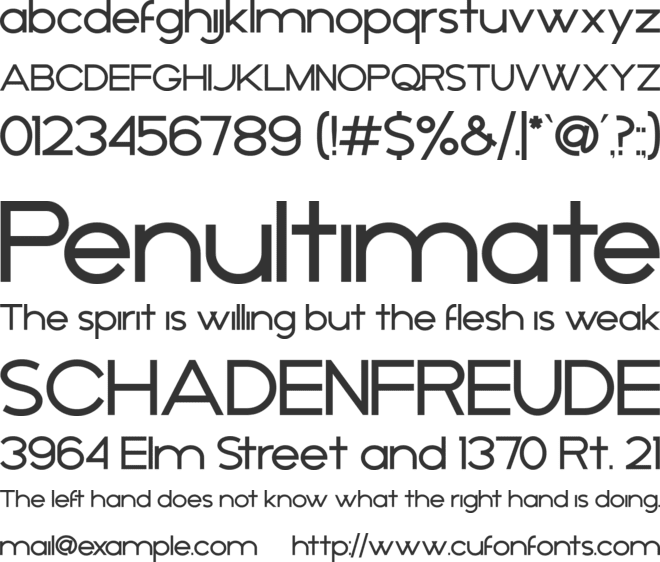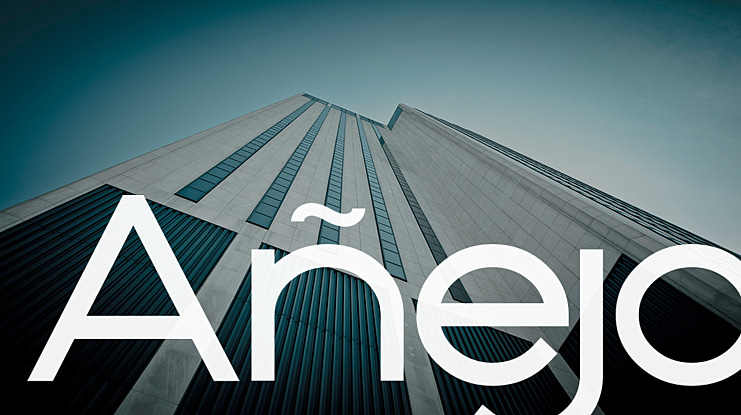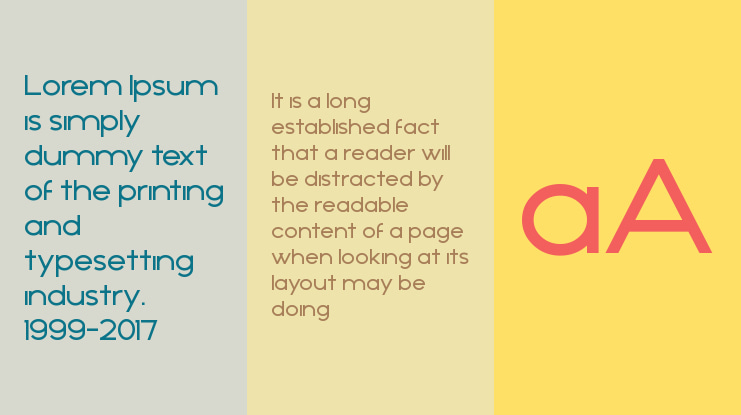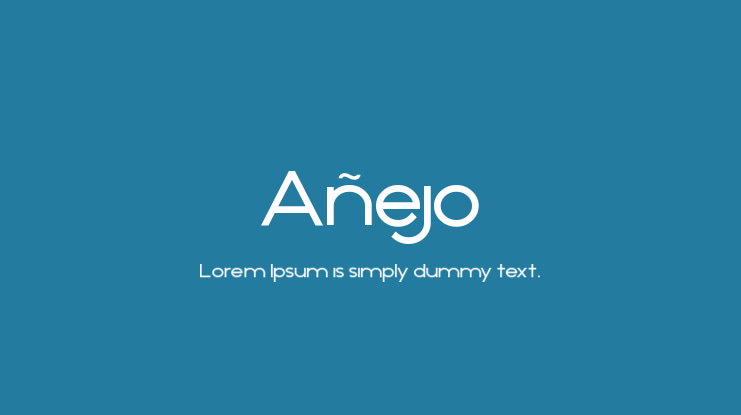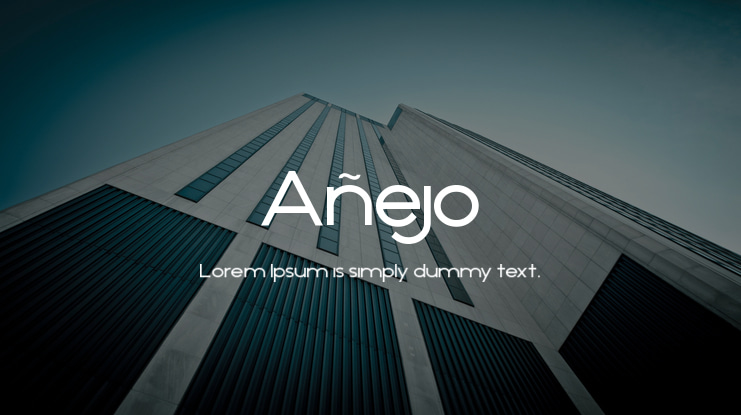
Añejo Font
This sans serif font is bold and aged to perfection, in other words, it means business.
This font was inspired by fancy liquor ads that I have seen around town in San Salvador.